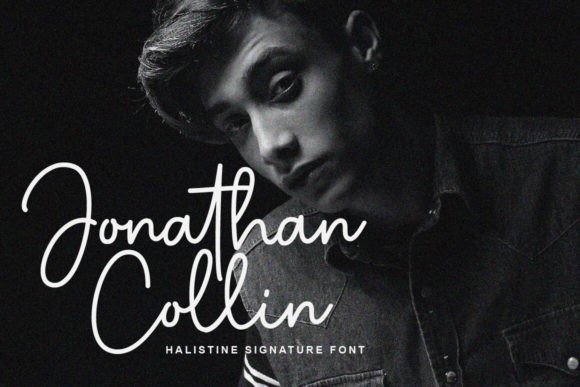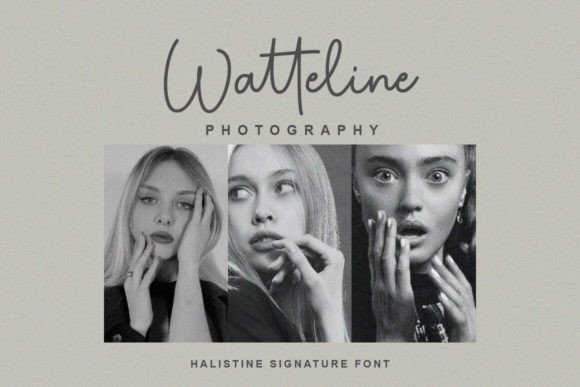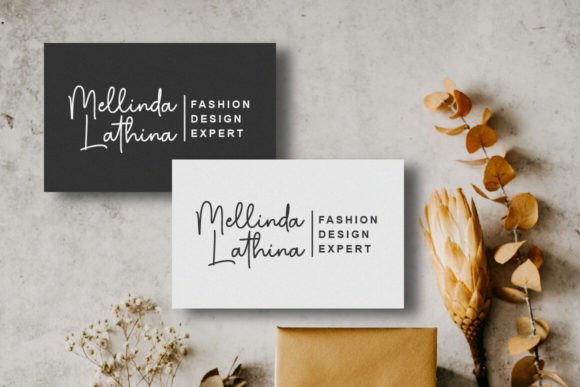
Halistine Signature Font
About the Halistine Signature Font
Presenting Halistine Signature Font, a unique and stylish typeface that will make your work stand out. Halistine Signature is a monoline script font with a signature style and a handwritten appearance. Inspired by handwriting, this font exudes elegance, smoothness, and a personal touch. This font is suitable for designs that require a personal touch and a casual feel.
Halistine Signature excels in applications requiring a touch of personal warmth and elegance, such as wedding invitations, logos for boutiques or artisan businesses, and short, impactful quotes on social media graphics. Its fluid strokes are ideal for creating a sense of handwritten authenticity. However, its monoline weight and script style make it less suitable for body text or UI elements where high legibility is crucial. Extended use can lead to reduced readability.
This font’s elegant yet casual nature pairs well with clean sans-serif fonts like Open Sans or Lato for a balanced contrast. For a more sophisticated feel, consider pairing it with a classic serif typeface such as Garamond or Playfair Display. Avoid pairing it with other script fonts, which would create visual clutter.
Halistine Signature projects a sophisticated yet approachable personality, best suited for brands that value handcrafted quality and personalized experiences. Its inherent elegance makes it a versatile option, but careful consideration of its legibility limitations is vital for successful application.
Halistine Signature Font Usage Examples
Halistine Signature Font Example